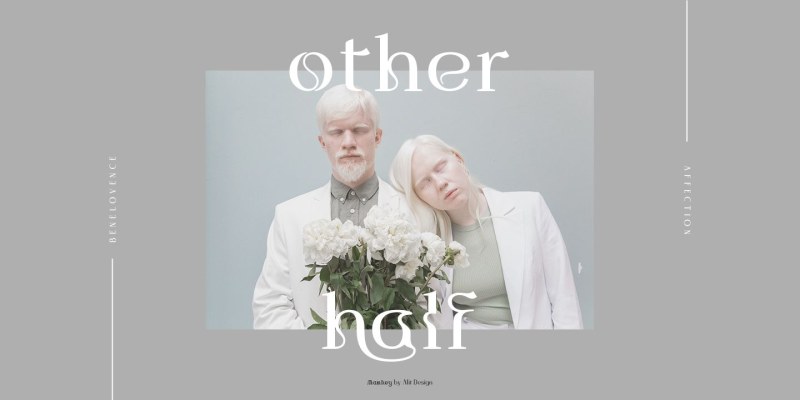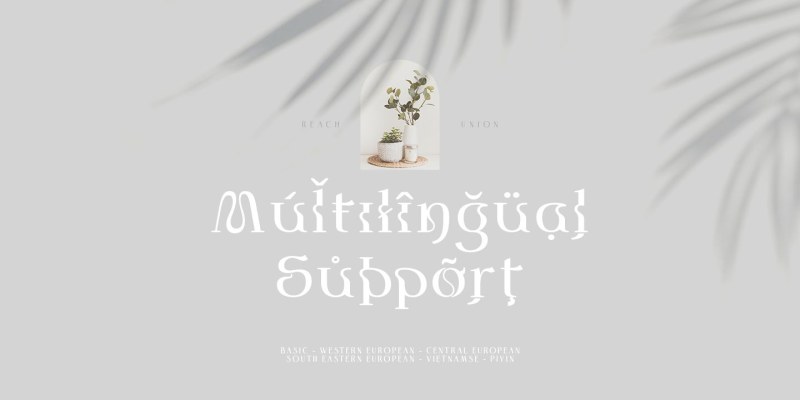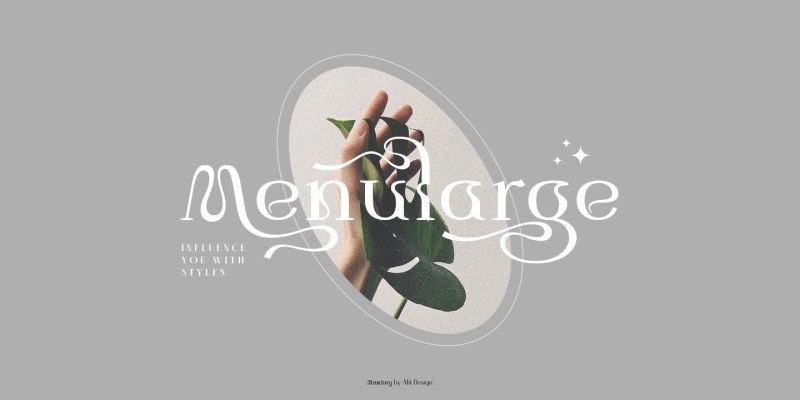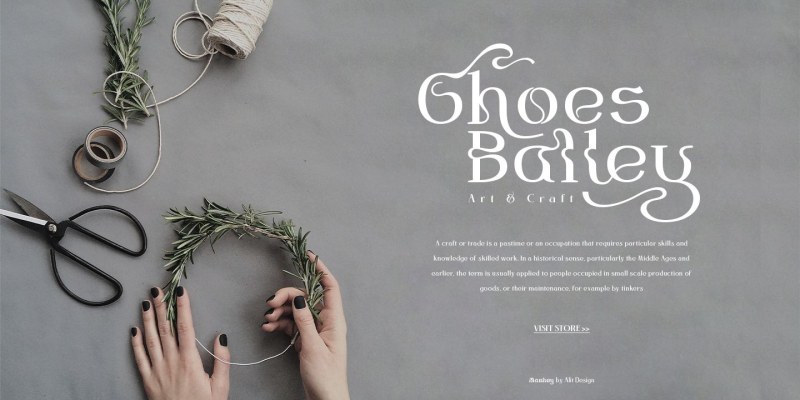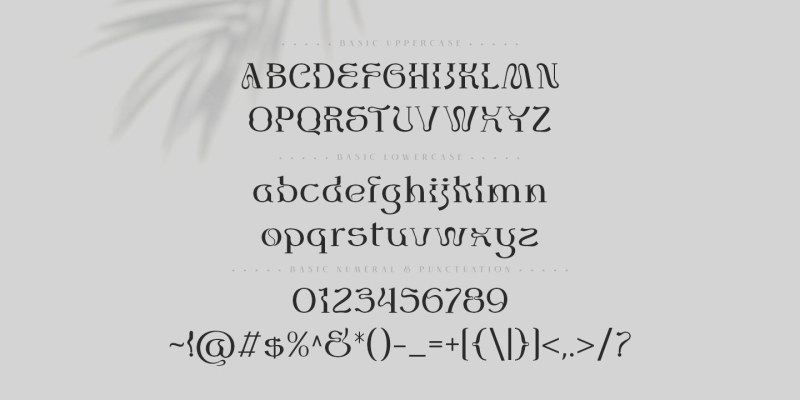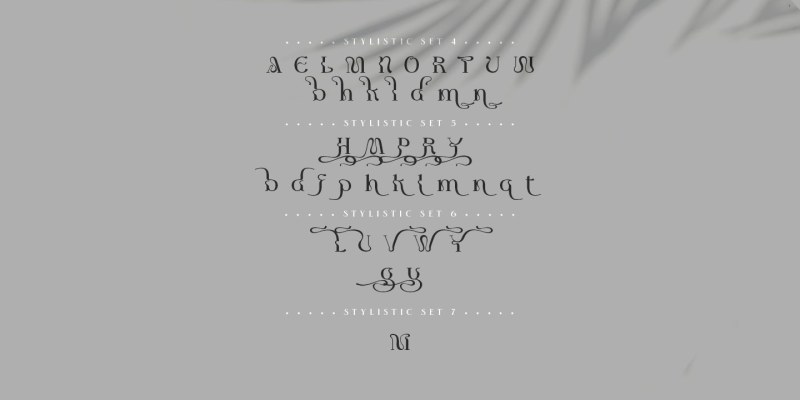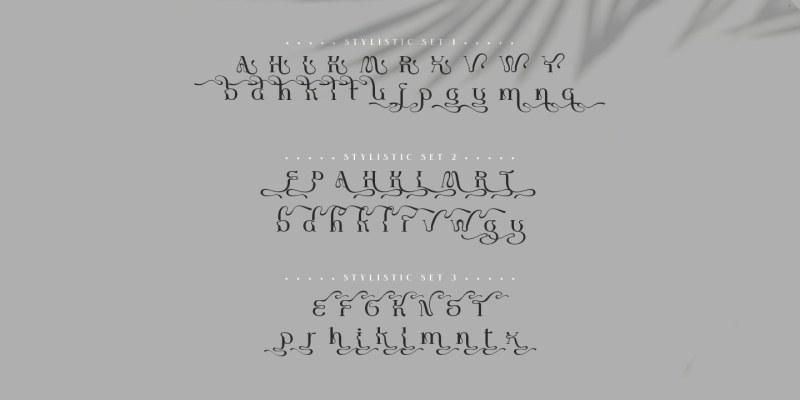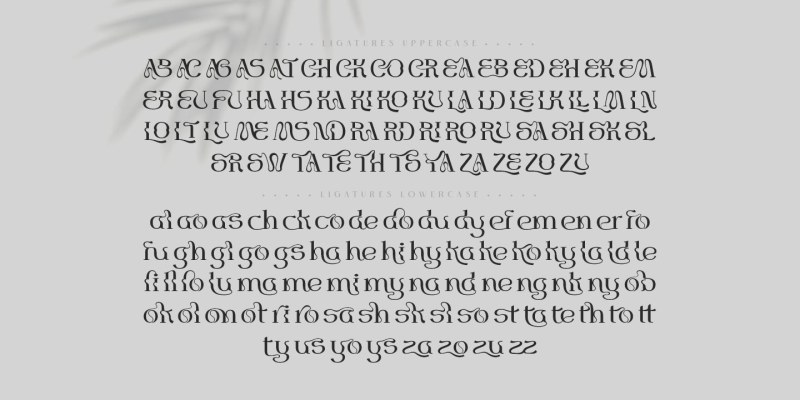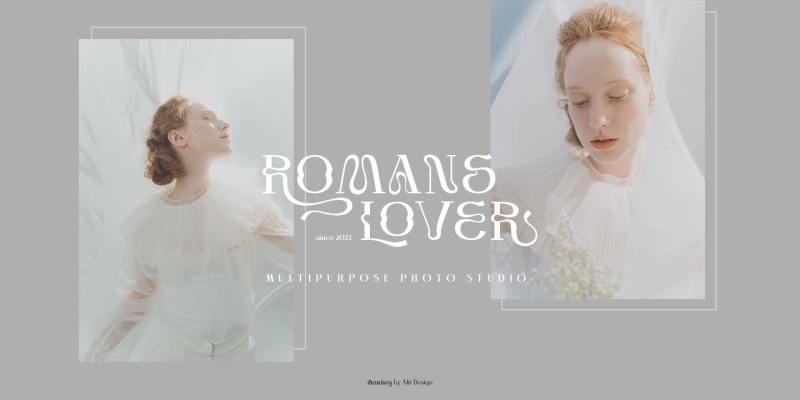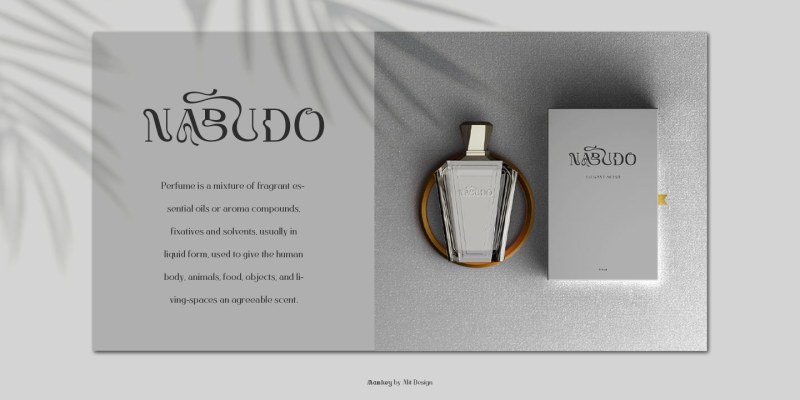
Mankey Font
The Mankey Font is made with the concept of a modern font display that gives a unique impression because it has a curvy shape like waves that is charming and unique. The serif style adopted by the Mankey font is a 2022 style font, has a unique swash alternative, has a large selection of ligatures.
In addition. Serif typefaces such as “ Mankey typeface” are very easy to apply to any design, especially those with an elegant and smooth concept, besides that this font is very easy to use both in design and non-design programs because everything changes and glyphs are supported by Unicode (PUA). The Mankey typeface contains 704 glyphs with many unique and interesting alternative options.
Where Mankey Font works best
Event & seasonal design
Mankey Font suits themed posters, holiday campaigns, festival identities and party invitations.
Game & entertainment titles
Decorative letterforms are a natural fit for game logos, movie-style titles and merch.
Packaging accents
Use Mankey Font sparingly for product names or flavour labels that need personality.
What is Mankey Font good for?